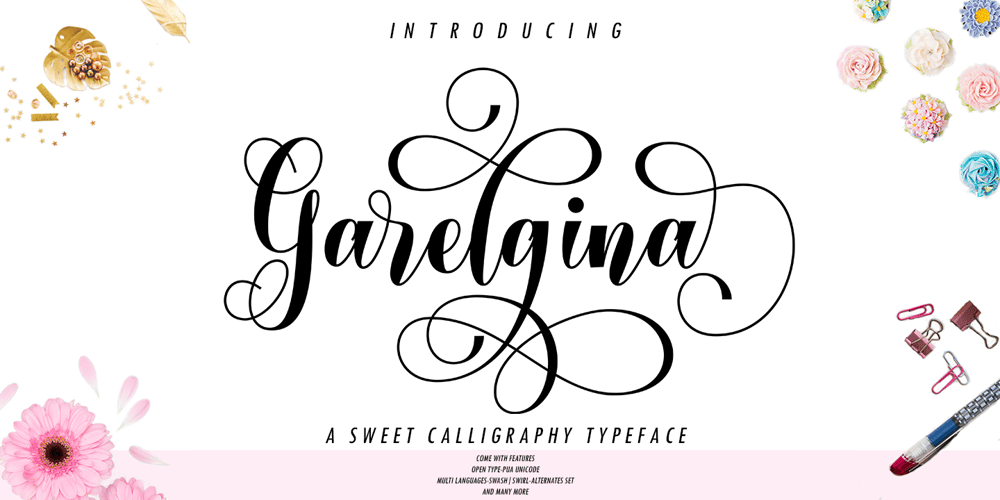
Garelgina Font Family was designed by M Irvan Syouqi S and published by IRF Lab Studio. Garelgina contains 1 styles and family package options. Garelgina is a sexy handwritten font with varied baselines, designed to convey elegance and style, clean and light. Perfect for logos, magazines, menus, books, invitations, wedding / greeting cards, packaging, labels, t-shirts, etc. All of your designs will have a fabulous homemade touch with Garelgina.Garelgina is coded with Unicode PUA, which allows full access to all additional characters without having any special design software. Mac users can use Font Book, and Windows to attach your favorite text editor / application.To activate the OpenType Stylistic alternative, you need a program that supports OpenType features such as Adobe Illustrator CS, Adobe Indesign & CorelDraw X6-X7, Microsoft Word 2010 or a later version. and there are additional ways to access alternatives / swashes, using Character Maps (Windows), Nexus Fonts (Windows), Font Books (Mac) or a software program such as PopChar (for Windows and Mac).